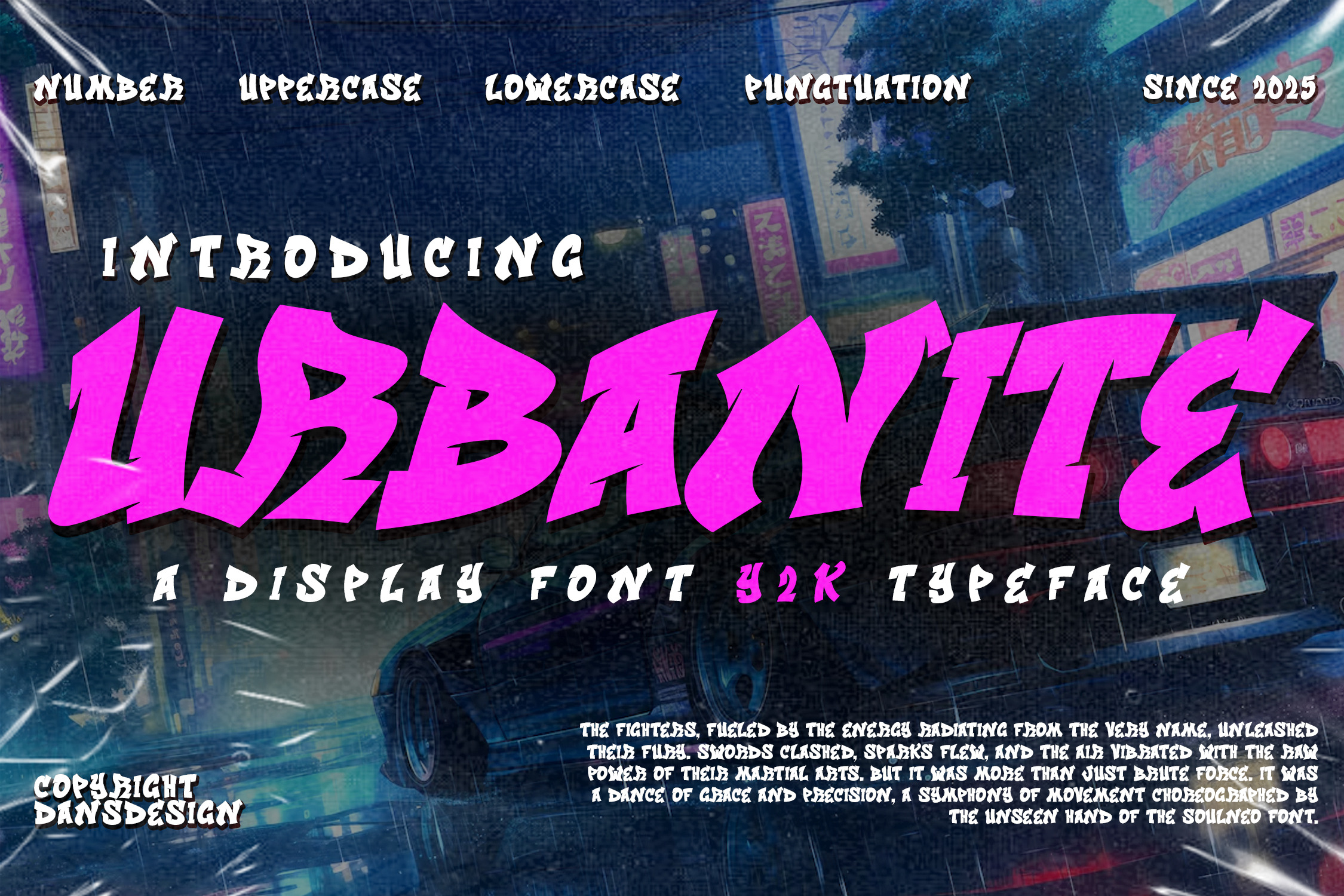
Urbanite A Display Font Y2K Graffiti
Urbanite – Y2K Brush Typeface for Games, Esports, and Urban Motion
Urbanite is a dynamic hand-drawn brush typeface built for speed, style, and digital rebellion. With bold strokes and Y2K-inspired curves, this typeface channels the energy of early-2000s arcades, graffiti battles, and underground arenas. It’s fast, raw, and ready for the screen.
Whether you’re designing for fighting games, esports events, or neon-lit motion graphics, Urbanite gives your visuals maximum impact. 🕹️ Perfect For:
Game titles and esports branding YouTube intros & Twitch overlays Motion graphics and retro animation Cyber-themed event flyers Graffiti-inspired artwork and arcade posters 2000s pop culture revival visuals
⚡ Key Features:
Light up your design with the pulse of retro speed and modern grit. Urbanite doesn’t whisper — it shouts with style.